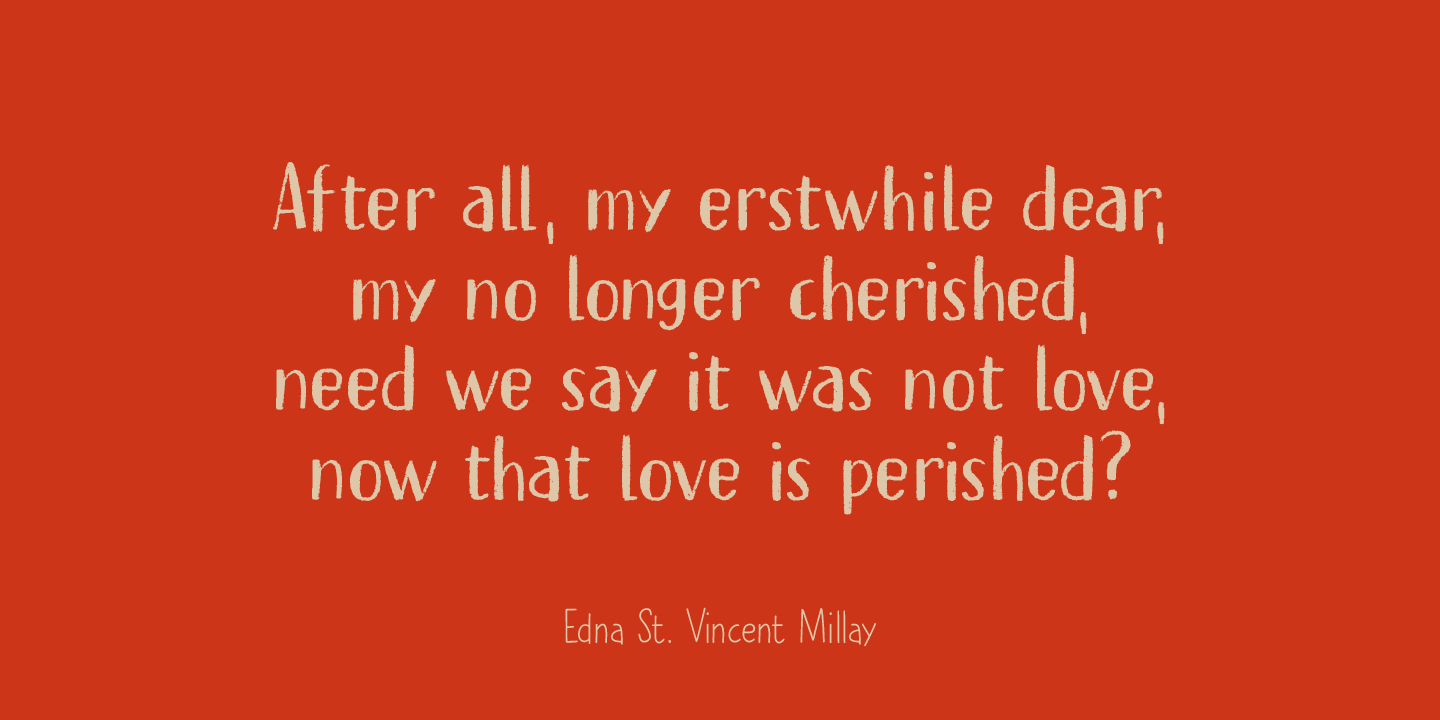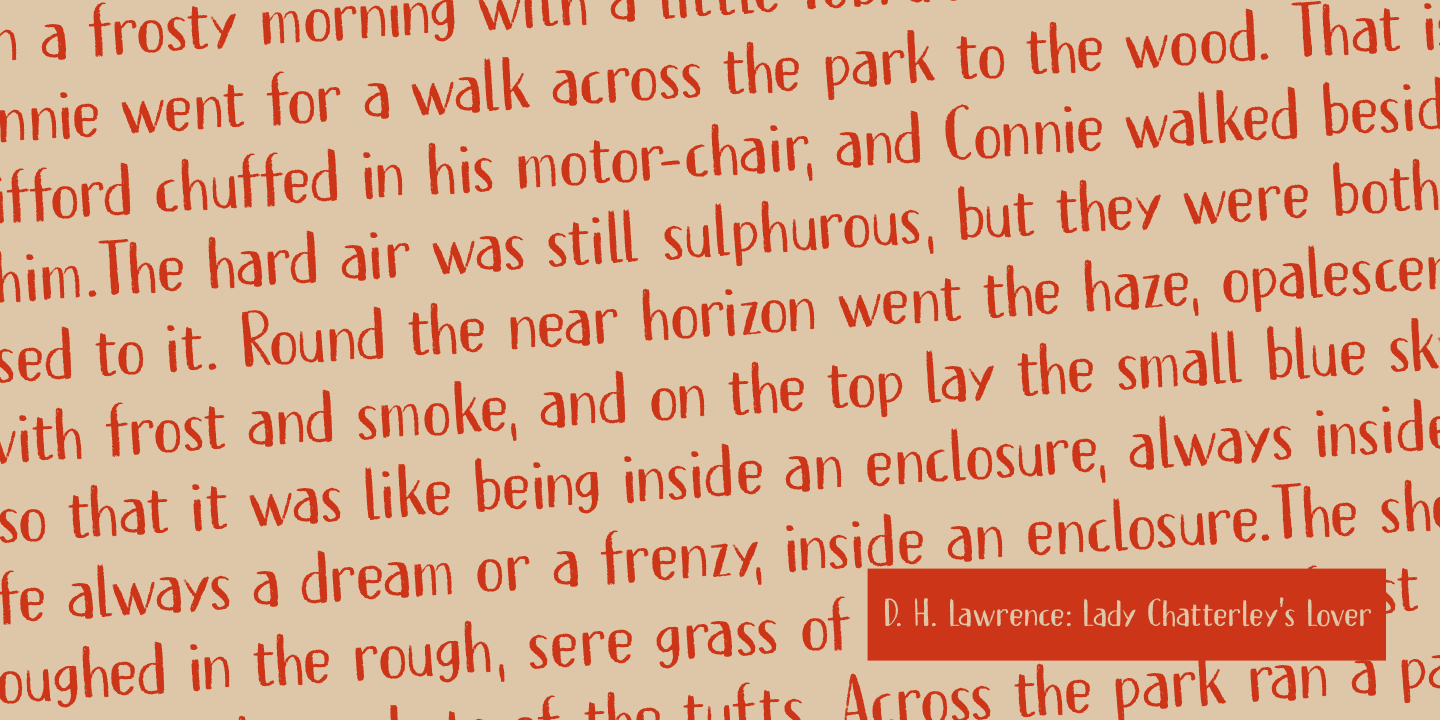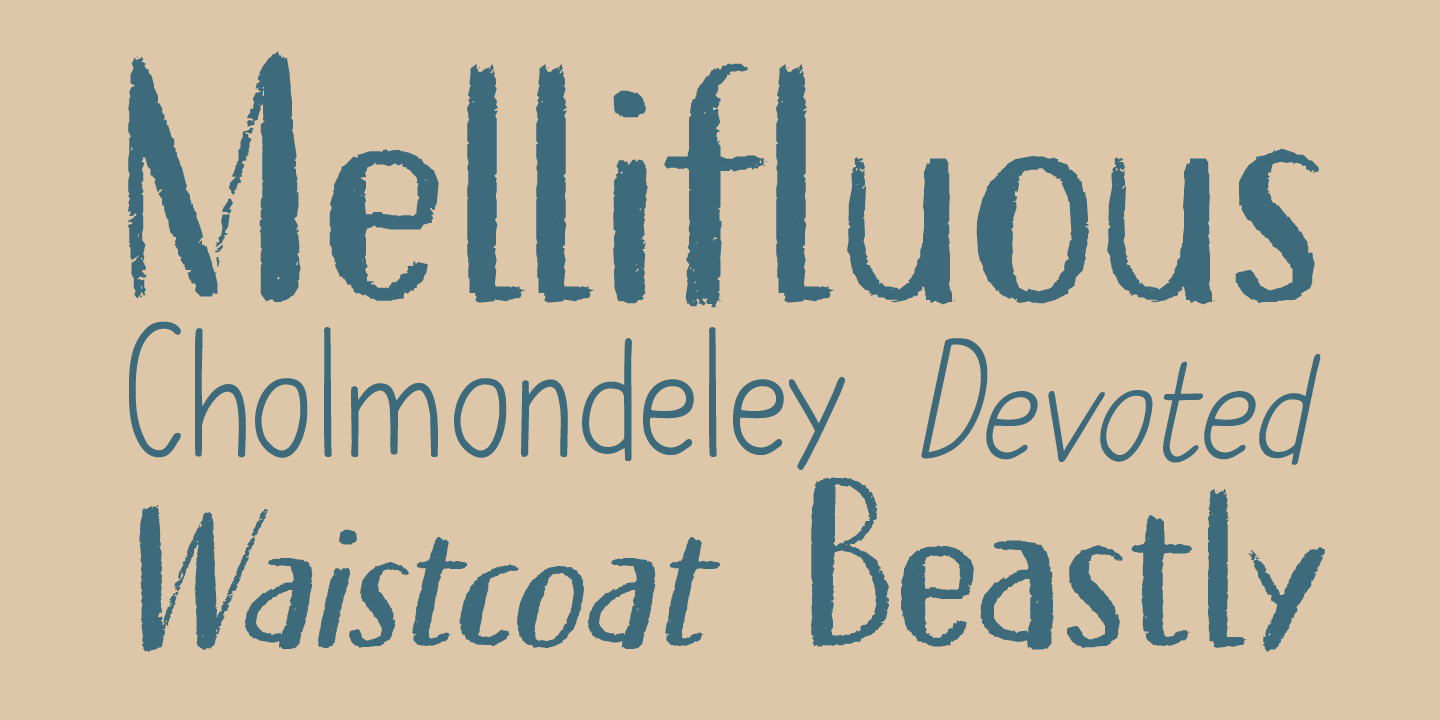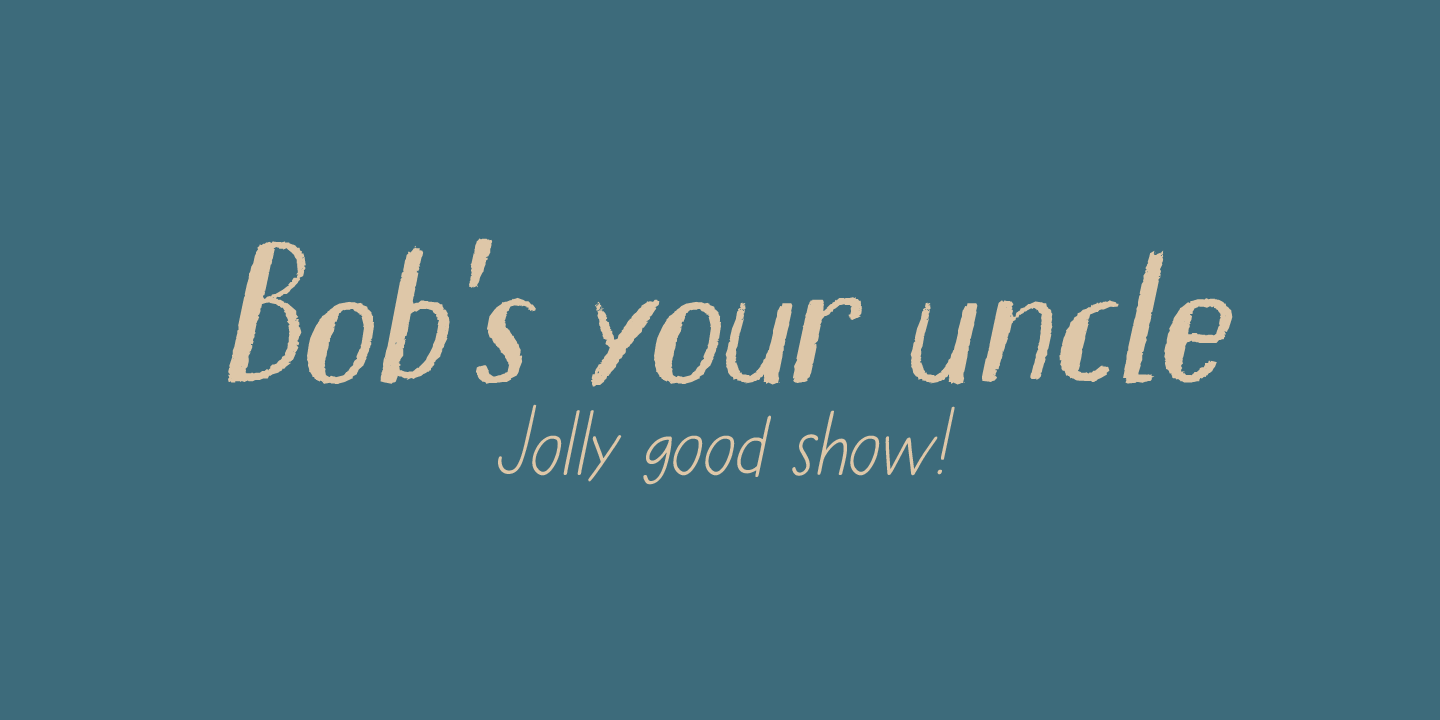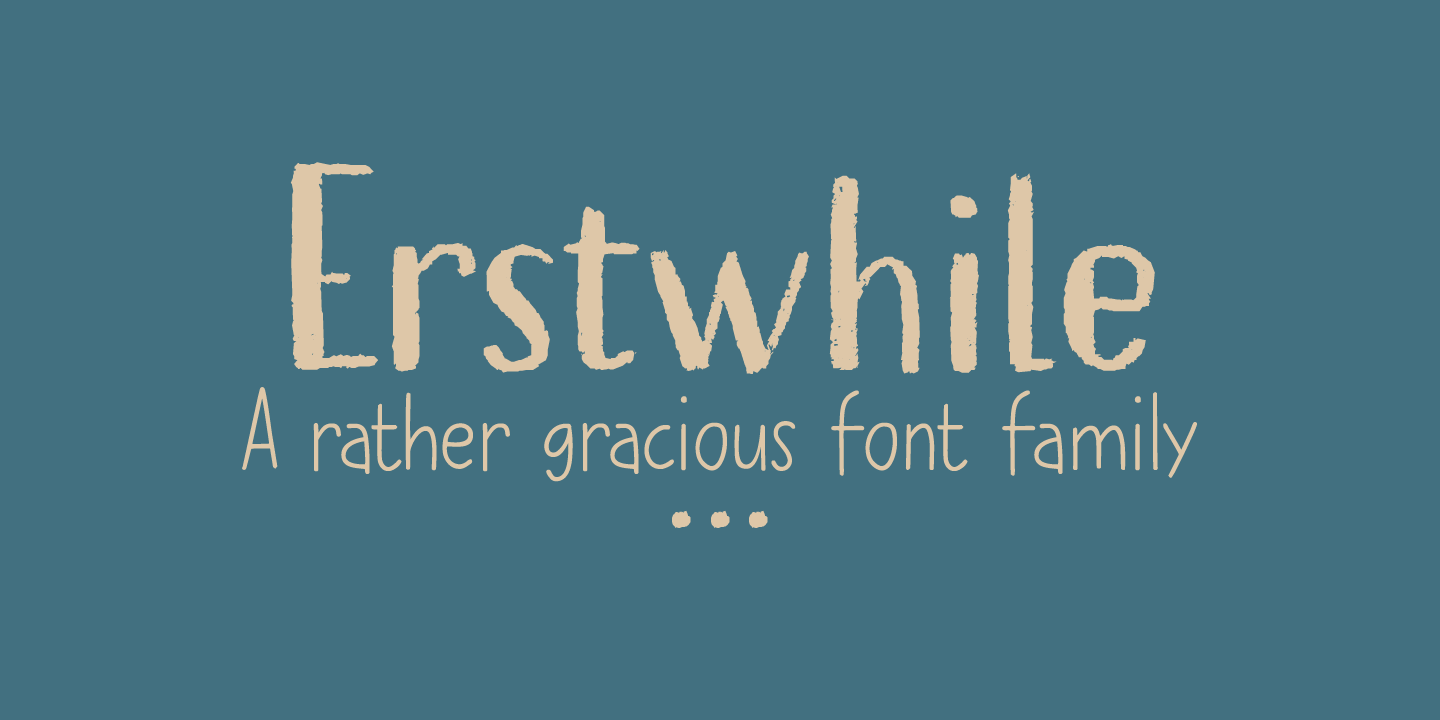
About Erstwhile
I like posh English words – the ones you read in books, but actually never use. Erstwhile is such a word; it means ?former?, but if you use it while talking to someone, it sounds quite odd. Erstwhile is a classy font family – hand made in Holland (with…